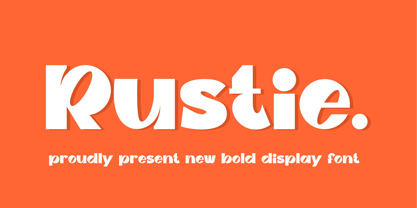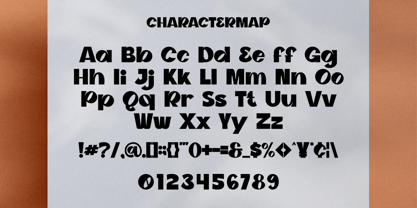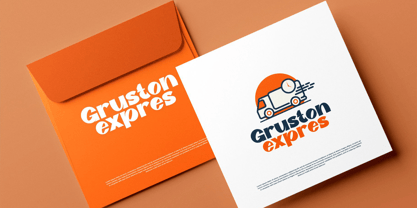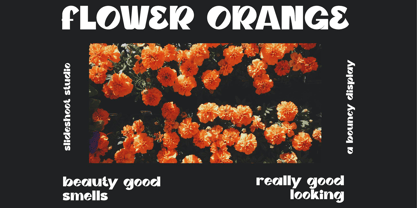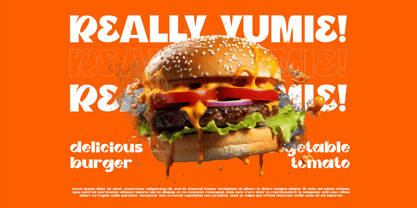
Rustie
Die Schriftfamilie Rustie wurde von Ahmad Riqi entworfen und von Slide Shoot veröffentlicht. Rustie enthält 1 Stile.
Introducing Rustie - An elegant modern display font. Its clean and minimalistic works wonderfully on its own for logos, headlines, posters, packaging and many more! And with Three different weights to choose, your option to create more unique and versatile design is a lot wider. Have fun and create more.. Your Imagination only your limit!!